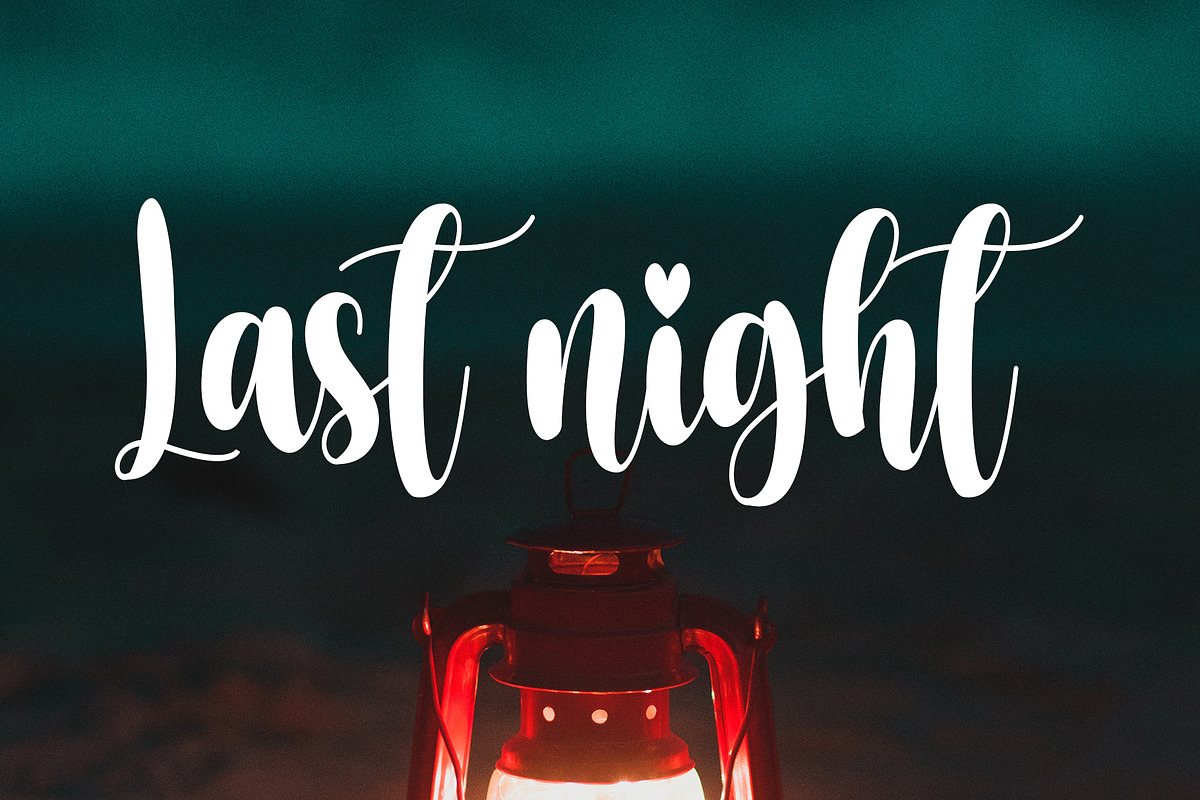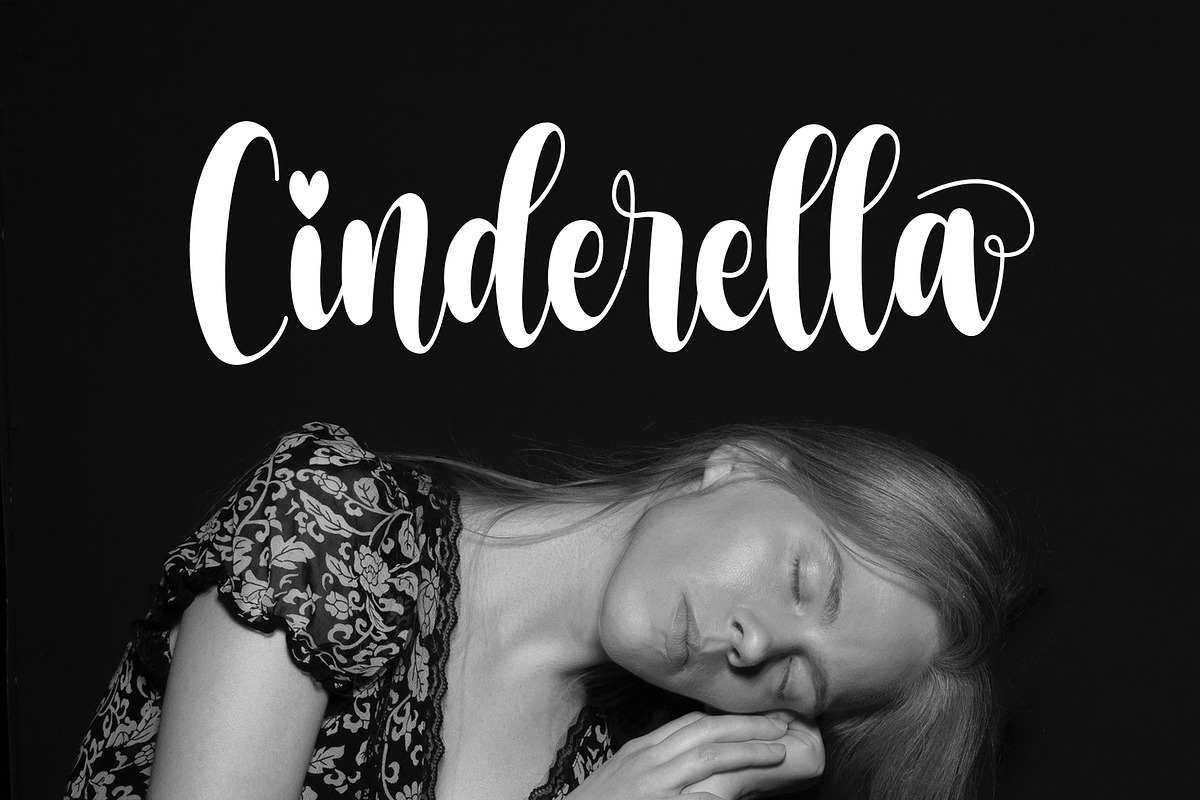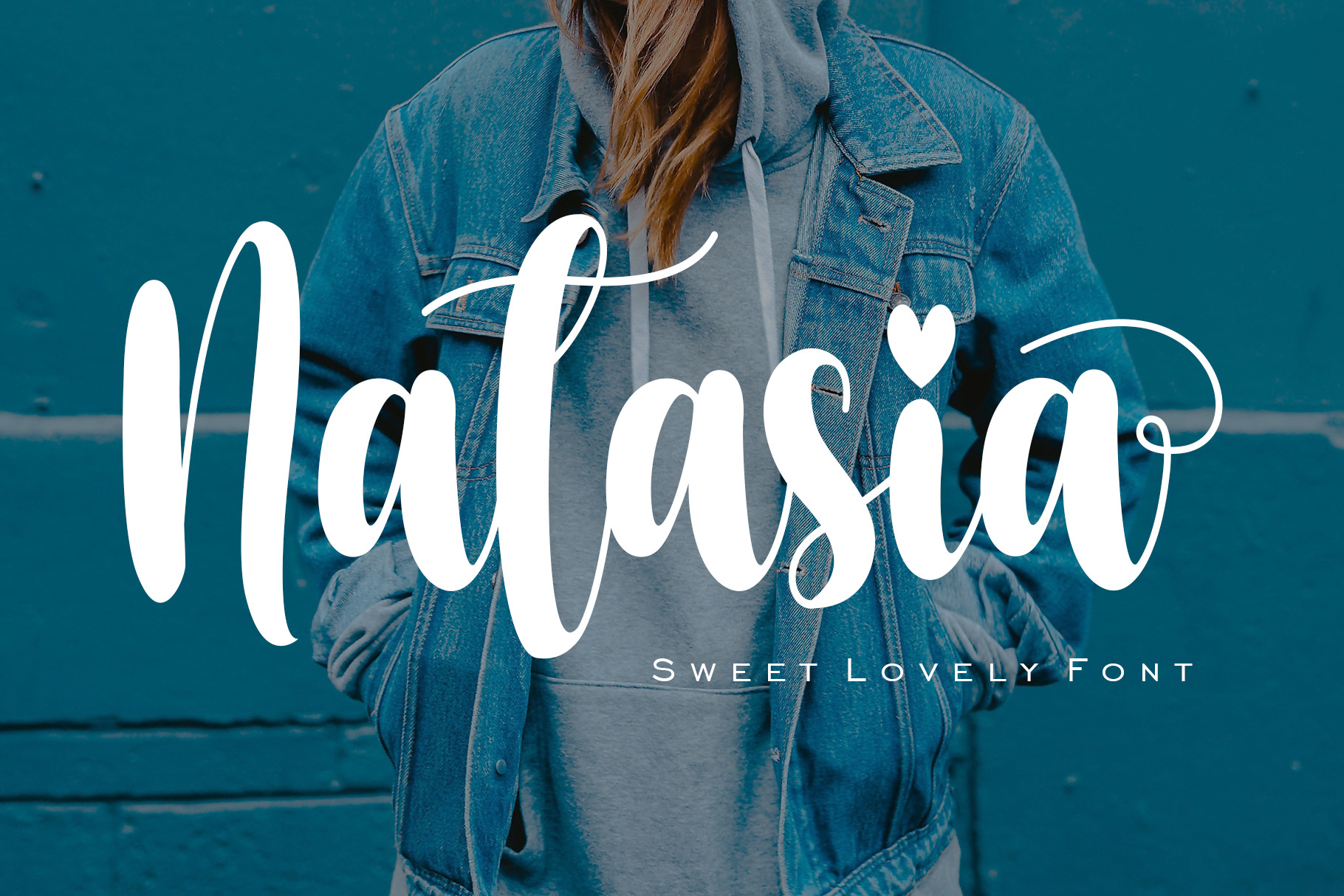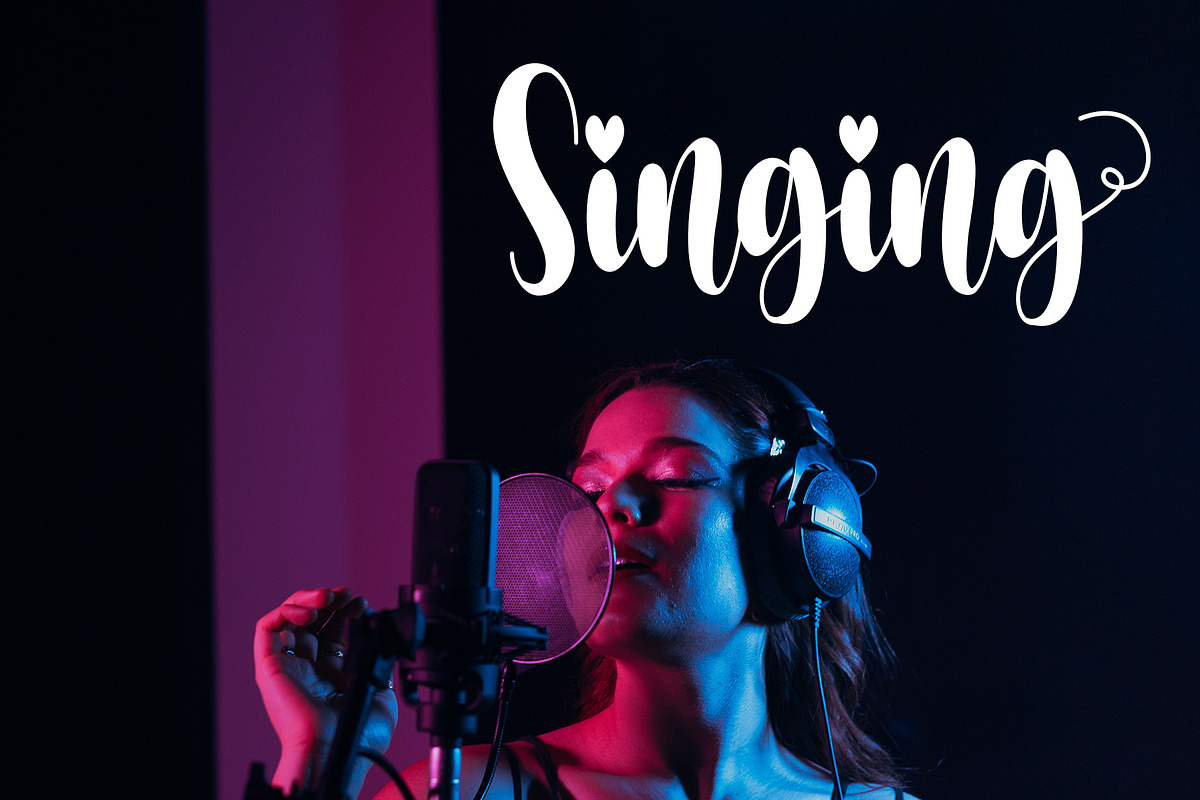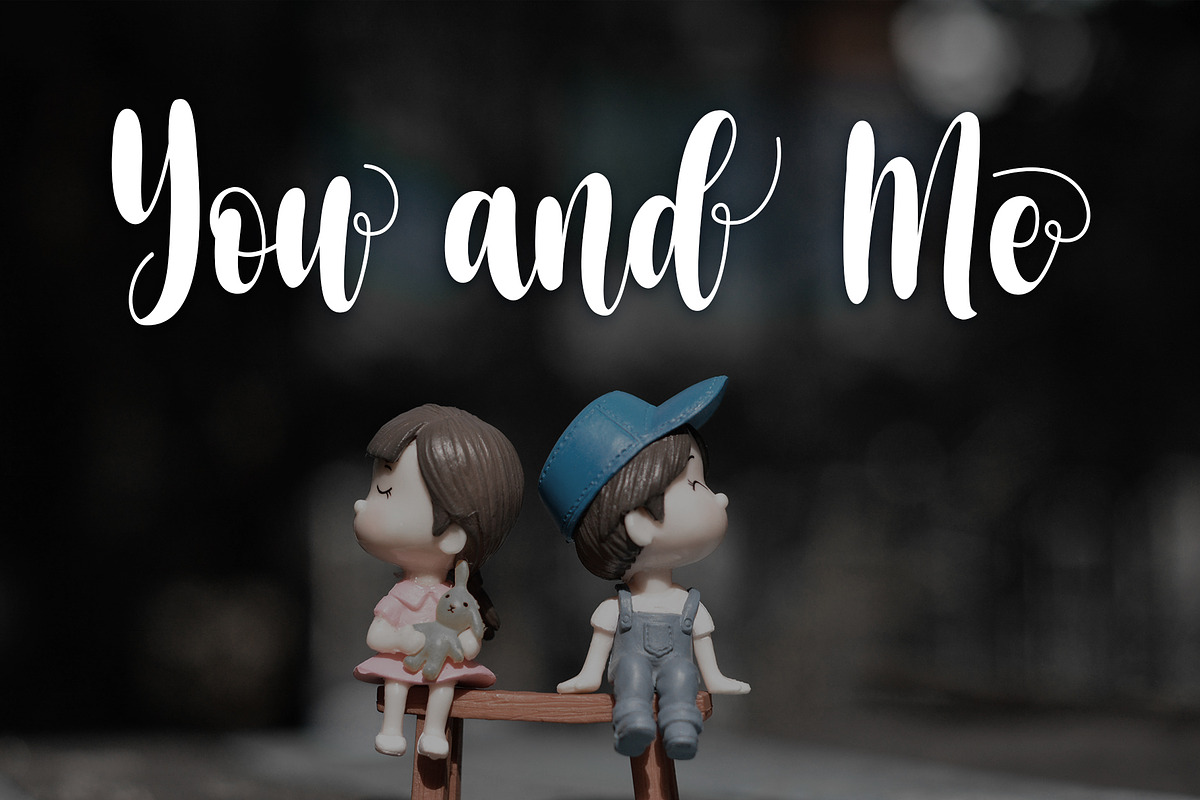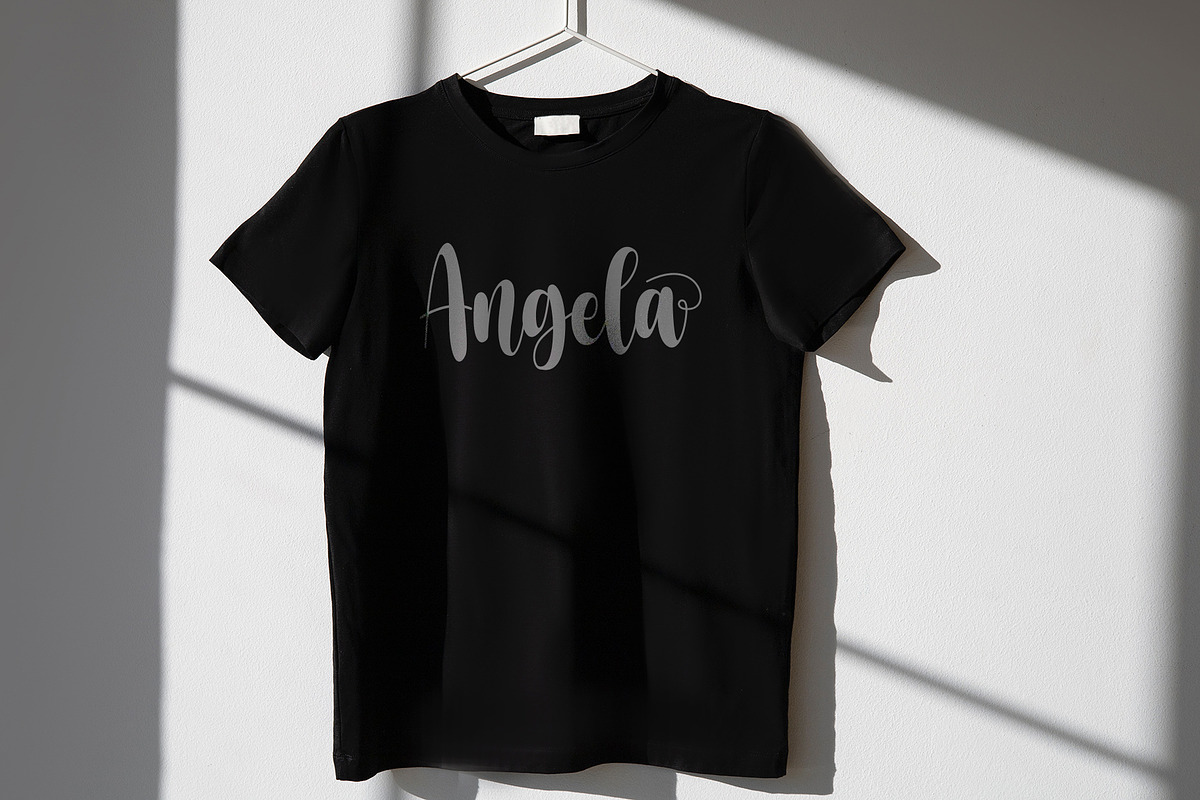
Natasia - Sweet Lovely Font
Natasia is a delicate and fashionable lovely font. It is perfect for any branding project such as logos, t-shirt printing, creative products, and more. It will look extraordinary in a variety of contexts.